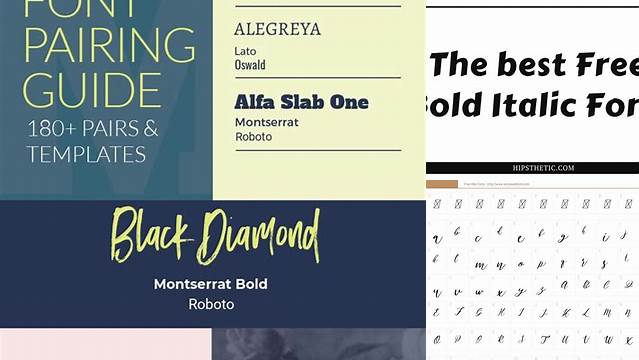
Free Italic Fonts: Your Ultimate Guide
Hey guys! Ever wondered where to find those perfect free italic fonts to spice up your projects? You're in the right place! This guide dives deep into the world of italic fonts, showing you where to find them, how to use them, and everything in between. We’ll explore various styles, licensing considerations, and even some tips on pairing them with other fonts. So, let's get started and make your text truly stand out with some fantastic free italic fonts!
1. What Are Italic Fonts?
Okay, so before we jump into the hunt for free italic fonts, let's make sure we're all on the same page. What exactly are italic fonts? Simply put, italics are a typeface style where the letters slant to the right. This gives the text a flowing, elegant, and sometimes even a slightly handwritten feel. Think of it as the fancy cursive cousin of regular fonts. Italic fonts are often used for emphasis, quotes, foreign words, or simply to add a bit of visual flair to your designs. When you are working on a project, having a good grasp of how to use free italic fonts can really take the work to the next level and keep things interesting. You can also see how different types of fonts can pair with italics to give a more polished finished product.
2. Why Use Italic Fonts?
So, why should you even bother with free italic fonts? Well, there are tons of reasons! For starters, italics are fantastic for drawing attention to specific words or phrases. Imagine you're writing a blog post and want to highlight a key point—italics are your go-to. They also add a touch of sophistication and elegance, making your text feel more refined. Plus, they’re super useful for distinguishing quotes, book titles, or foreign language terms. Using italics can be a subtle way to communicate a lot of meaning. When you think about the impact of free italic fonts, consider the tone they can add to your project. Are you trying to be formal, friendly, or academic? The right italic font can help convey your intention. And the best part? You can often find amazing free italic fonts that don’t break the bank.
3. Where to Find Free Italic Fonts Online
Alright, let’s get to the good stuff: where can you actually find these magical free italic fonts online? The internet is overflowing with options, but knowing where to look is key. Websites like Google Fonts, Font Squirrel, and DaFont are treasure troves of free italic fonts. These platforms offer a wide variety of styles, from classic to modern, ensuring you’ll find something that fits your project perfectly. When browsing these sites, be sure to use the search filters to narrow down your options. Look for categories like “italic,” “script,” or “handwritten” to make your search more efficient. Always remember to check the licensing terms before you download and use a font, just to make sure you’re following the rules. Finding free italic fonts doesn't have to be a headache, and with the right resources, you can build an impressive font library.
4. Google Fonts Italic Selection
Speaking of Google Fonts, let’s zoom in on their italic selection. Google Fonts is a powerhouse for free italic fonts, offering a massive library that's completely free to use for both personal and commercial projects. The best part? They’re super easy to integrate into websites and documents. Google Fonts includes a vast array of italic styles, from classic serif italics to modern sans-serif versions. You can preview how the fonts look in different sizes and styles right on the website. To find the italic fonts, simply search for a font family and check if they offer an italic version. Many popular fonts like Open Sans, Roboto, and Lato have fantastic italic variations. Using Google Fonts for free italic fonts is a smart move because you know they are high-quality and compatible across different platforms and devices. Plus, their interface is user-friendly, making the whole process a breeze.
5. Font Squirrel Italic Options
Next up, let’s talk about Font Squirrel. Font Squirrel is another fantastic resource for free italic fonts, known for its collection of high-quality, commercial-use-friendly fonts. This means you can use the fonts for almost any project without worrying about licensing issues. Font Squirrel offers a curated selection of fonts, making it easier to find unique and stylish options. Their website has a handy “Font Identifier” tool, which lets you upload an image of a font and try to identify it—super useful if you spot an italic font you love but don’t know the name! When browsing Font Squirrel for free italic fonts, you’ll find everything from elegant script italics to bold, modern versions. This site is particularly great if you’re looking for something a little different from the mainstream choices. The peace of mind knowing the fonts are cleared for commercial use makes Font Squirrel a top pick for many designers and creatives.
6. DaFont's Free Italic Variety
7. Understanding Font Licensing
Okay, guys, let's talk about the not-so-glamorous but super important stuff: font licensing. When you're dealing with free italic fonts, it's crucial to understand the terms of use. Basically, a font license tells you what you're allowed to do with the font. Some fonts are free for personal use only, meaning you can use them for your personal projects but not for anything that makes money. Others are free for commercial use, which means you can use them in projects for clients or even in products you sell. Always check the license agreement before using any free italic fonts. This is usually a text file included with the font download or mentioned on the website where you found the font. Ignoring font licenses can lead to legal trouble, so it’s always better to be safe than sorry. Understanding these licenses ensures you can enjoy free italic fonts without any headaches down the road.
8. Personal Use vs. Commercial Use
Diving a bit deeper into licensing, let’s clarify the difference between personal and commercial use. Personal use means you're using the free italic fonts for projects that aren't related to making money. Think of things like personal blogs, school projects, or greeting cards for friends and family. Commercial use, on the other hand, means you're using the font in a project that is intended to generate revenue. This could be anything from a logo for a business to marketing materials for a product. When searching for free italic fonts, always pay close attention to whether the license allows for commercial use if that's what you need. Some designers offer fonts that are free for personal use but require a license purchase for commercial use. Knowing the distinction between these two types of use will help you stay on the right side of the law and ensure you’re using your free italic fonts appropriately.
9. Pairing Italic Fonts with Other Styles
Now for the fun part: pairing free italic fonts with other styles! Choosing the right combination of fonts can make a huge difference in the overall look and feel of your project. A general rule of thumb is to pair an italic font with a contrasting style, such as a sans-serif font. For example, you might pair an elegant serif italic with a clean, modern sans-serif for headings. This creates a visual hierarchy and makes your design more interesting. Another tip is to use italics sparingly for emphasis rather than for large blocks of text. Overusing italics can make your design look cluttered. Experiment with different combinations and see what works best for your project. There are tons of online resources and articles that offer font pairing suggestions to inspire you. Mastering the art of pairing free italic fonts with other styles is a key skill for any designer.
10. Italic Fonts for Logos
Thinking about using free italic fonts for a logo? It’s definitely a stylish choice! Italic fonts can add a touch of elegance, sophistication, and personality to your brand identity. They're particularly effective for brands that want to convey creativity, artistry, or a personal touch. However, it’s crucial to choose the right italic font for your brand's message. A flowing script italic might be perfect for a boutique or a creative agency, while a more structured italic might suit a professional service. Consider the legibility of the font as well. While some script italics look beautiful, they can be difficult to read at smaller sizes. Make sure your logo is clear and legible in all contexts. Also, remember to check the font license if you plan to use free italic fonts commercially in your logo. A well-chosen italic font can make your logo stand out and leave a lasting impression.
11. Italic Fonts for Websites
Using free italic fonts on your website can add a touch of sophistication and visual interest. Italics are great for highlighting key phrases, quotes, or even navigation elements. However, like with logos, it's important to use them judiciously. Overusing italics can make your website look cluttered and difficult to read. Stick to using italics for specific purposes, such as emphasizing important information or creating a visual hierarchy. When choosing free italic fonts for your website, consider readability on different devices. Some fonts look great on a desktop but become less legible on mobile screens. Test your font choices on various devices to ensure a consistent user experience. Also, consider website loading times. Using too many different fonts, especially those that are not web-safe, can slow down your site. Opting for web fonts from services like Google Fonts can help minimize this issue. With a bit of care, free italic fonts can significantly enhance your website's design.
12. Italic Fonts in Print Design
When it comes to print design, free italic fonts can be a game-changer. They add a level of elegance and can help draw the reader's eye to important details. Whether you’re designing brochures, posters, or business cards, italics can play a key role in creating a polished look. One of the great uses for italics in print is for captions, where they can provide additional context or commentary in a subtle way. They’re also fantastic for pull quotes, giving these highlighted sections a distinct visual identity. When selecting free italic fonts for print, keep in mind that what looks good on screen might not always translate perfectly to paper. Print resolution can affect how fine details appear, so it’s crucial to test your fonts at different sizes. Also, be mindful of your paper choice and ink colors, as these can influence the final result. Using free italic fonts effectively in print design can elevate your projects from good to great.
13. Combining Serif and Italic Fonts
Pairing serif fonts with free italic fonts is a classic and effective way to create visually appealing designs. Serif fonts, with their small decorative strokes, often convey a sense of tradition and formality. When you combine them with italics, which add a touch of elegance and emphasis, you get a dynamic and balanced look. This combination is particularly popular in editorial design, where serif fonts are commonly used for body text and italics highlight important details or quotes. To make the most of this pairing, choose serif fonts that have well-designed italic versions. Not all serif fonts have equally attractive italics, so it’s worth taking the time to find a good match. Consider the weight and style of both fonts as well. A bold serif font might pair well with a lighter italic, or vice versa. Experimenting with different combinations will help you find the perfect harmony between serif fonts and free italic fonts for your project.
14. Sans-Serif and Italic Font Pairings
Sans-serif fonts, known for their clean and modern look, can also pair beautifully with free italic fonts. This combination brings a contemporary feel to your designs, blending the simplicity of sans-serif with the stylish flair of italics. Using sans-serif fonts for headings and body text while reserving italics for emphasis or captions can create a clear visual hierarchy. When selecting a sans-serif font to pair with italics, consider the overall tone you want to convey. A geometric sans-serif, for instance, might pair well with a sleek, understated italic, while a more humanist sans-serif could complement a flowing script italic. As with serif pairings, balance is key. Avoid choosing fonts that are too similar in weight or style, as this can make your design look monotonous. Instead, aim for contrast while maintaining harmony. Exploring various pairings of sans-serif and free italic fonts can lead to some striking and effective designs.
15. Script Italic Fonts: A Closer Look
Script italic fonts are where the magic truly happens when you want to add a personal and elegant touch. These fonts mimic the fluidity of handwriting, making them ideal for invitations, headings, and designs that require a touch of sophistication. When using script free italic fonts, it’s crucial to consider readability. Some script fonts can be quite ornate, making them challenging to read in large blocks of text or at small sizes. It’s often best to reserve script italics for shorter phrases or titles where their elegance can shine without sacrificing clarity. Pairing script italics with a simpler font, such as a sans-serif, can create a balanced and visually appealing design. The contrast between the elaborate script and the clean sans-serif helps each style stand out. Also, be mindful of the context. Script free italic fonts are perfect for projects that require a personal touch, like wedding invitations or thank-you notes, but might not be the best choice for a corporate report or technical document.
16. Bold Italic Fonts: When to Use Them
Bold italic fonts are the powerhouses of the italic world. They pack a punch and are perfect for when you need extra emphasis or a strong visual statement. Using bold italics can make key phrases and headings stand out, drawing the reader’s eye to the most important information. However, like any strong element, bold italics should be used sparingly. Overusing them can make your design look cluttered and overwhelming. Think of bold italics as the exclamation point of typography—use them when you really want to make an impact. They work particularly well in print design, such as in brochures or posters, where you need to grab the reader's attention quickly. When selecting bold free italic fonts, consider the overall tone of your design. A heavy, blocky italic might be suitable for a bold, modern design, while a more refined bold italic could complement a classic or elegant look. The key is to ensure the bold italic font enhances your message without overpowering it.
17. Light Italic Fonts: Subtlety and Elegance
On the other end of the spectrum, light italic fonts offer subtlety and elegance. These fonts are perfect for designs that require a refined touch and a sense of understated sophistication. Light italics are excellent for creating a gentle emphasis, making them ideal for captions, subheadings, or subtle callouts. They can also be used effectively in body text to add a bit of visual interest without being too distracting. One of the advantages of light free italic fonts is their ability to create a sense of airiness and lightness. They’re particularly well-suited for designs that aim for a minimalist or clean aesthetic. However, it's important to consider readability when using light italics. On certain backgrounds or at smaller sizes, they can be more challenging to read. Testing your font choices in different contexts is crucial to ensure your message remains clear. When used correctly, light free italic fonts can bring a touch of sophistication to your designs.
18. Italic Fonts for Body Text: Best Practices
Using free italic fonts in body text can add a touch of elegance and visual variety, but it’s a practice that requires careful consideration. While italics are great for emphasis, overusing them in large blocks of text can make your content difficult to read. The general rule of thumb is to reserve italics for specific purposes within the body text, such as highlighting key terms, introducing foreign words, or citing book titles. If you’re planning to use italics extensively, choose a font that has a well-designed italic version with good readability. Some italic fonts can be too slanted or ornate, making them hard on the eyes when read for an extended period. Always prioritize clarity and legibility. Also, be mindful of the contrast between your italic font and the regular text. A subtle italic can blend seamlessly, while a more pronounced italic can create a stronger visual distinction. By following these best practices, you can effectively incorporate free italic fonts into your body text without sacrificing readability.
19. Italic Fonts for Headlines and Titles
Headlines and titles are prime real estate for free italic fonts. Italics can add a touch of elegance, sophistication, and visual interest to your headings, helping them stand out and grab the reader's attention. When choosing an italic font for a headline, consider the overall tone and style of your design. A flowing script italic might be perfect for a creative or artistic project, while a more structured italic could be a better fit for a professional or corporate context. One of the key advantages of using italics in headlines is their ability to create a visual hierarchy. An italic headline can stand out against a regular text body, making it clear to the reader what the main points are. However, it’s important to ensure that your italic headline remains legible. Avoid choosing fonts that are too ornate or condensed, as these can be difficult to read at larger sizes. Pairing your italic headline with a complementary font in the body text can create a harmonious and visually appealing design. With the right choice, free italic fonts can make your headlines truly shine.
20. Monospace Italic Fonts: A Unique Style
Monospace italic fonts offer a unique and distinct style that can add a touch of retro flair to your designs. Monospace fonts, where each character occupies the same horizontal space, are often associated with typewriters and coding environments. When you combine this with the slant of italics, you get a font that’s both functional and stylish. Monospace free italic fonts are particularly effective for displaying code snippets, technical information, or creating a vintage-inspired look. They can also be used to add a quirky twist to headings or captions. However, like other specialty fonts, it’s important to use monospace italics judiciously. Overusing them can make your design look cluttered or difficult to read. Consider the context of your project and whether the monospace italic style aligns with your overall message. When choosing a monospace italic font, pay attention to its legibility and character spacing. Some monospace fonts can have tight spacing, making them challenging to read in large blocks of text. With the right touch, monospace free italic fonts can add a unique and memorable element to your designs.
21. Variable Italic Fonts: The Future of Typography
Variable italic fonts represent the future of typography, offering incredible flexibility and control over font styles. Unlike traditional fonts, which have separate files for different weights and styles, variable fonts contain all this information in a single file. This means you can adjust the weight, width, and slant of the font with granular precision, allowing for a wide range of stylistic variations. For italics, variable fonts allow you to fine-tune the angle of the slant, creating subtle or dramatic effects as needed. This level of control is a game-changer for designers, providing the ability to create truly customized typography. While variable free italic fonts are still relatively new, they are gaining popularity and are supported by many modern design tools and web browsers. As the technology evolves, variable fonts are set to become the standard, offering a more efficient and versatile way to work with typography. Exploring variable free italic fonts can give you a glimpse into the exciting possibilities of the future of design.
22. Retro Italic Fonts: Bringing Back the Classics
Retro italic fonts are a fantastic way to infuse your designs with a sense of nostalgia and vintage charm. These fonts evoke the styles of past decades, from the mid-century modern era to the groovy 70s and the vibrant 80s. Using retro free italic fonts can add a unique and eye-catching touch to your projects, making them stand out from the crowd. When choosing a retro italic font, consider the specific era you want to emulate. A script italic with a flowing, calligraphic style might be perfect for a vintage wedding invitation, while a bold, slanted italic could capture the energy of a retro sports poster. One of the great things about retro fonts is their ability to create a strong emotional connection with the viewer. They can transport people back in time and evoke feelings of nostalgia and warmth. However, it’s important to use retro italics judiciously. Overdoing it can make your design look dated or kitschy. Balance your retro font with modern elements to create a design that’s both stylish and timeless. Exploring retro free italic fonts can open up a world of creative possibilities and help you craft designs that resonate with your audience.
23. Modern Italic Fonts: Sleek and Stylish
Modern italic fonts are all about sleekness, simplicity, and sophistication. These fonts embody contemporary design principles, with clean lines, minimalist forms, and a focus on readability. Using modern free italic fonts can give your designs a polished and professional look, making them ideal for projects that aim to convey a sense of innovation and style. When choosing a modern italic font, look for designs that have a subtle slant and a balanced appearance. Avoid fonts that are too ornate or decorative, as these can detract from the modern aesthetic. Modern italics pair well with sans-serif fonts, creating a clean and harmonious combination. They can be used effectively in headings, body text, and captions, adding a touch of elegance without sacrificing clarity. One of the key advantages of modern free italic fonts is their versatility. They can be used in a wide range of projects, from website design and branding to print materials and presentations. By incorporating modern italics into your designs, you can create a look that’s both stylish and timeless.
24. Calligraphic Italic Fonts: Elegance and Grace
Calligraphic italic fonts bring the beauty and fluidity of hand lettering to your designs. These fonts are inspired by traditional calligraphy, featuring elegant strokes, flowing lines, and a touch of artistic flair. Using calligraphic free italic fonts can add a sense of grace and sophistication to your projects, making them perfect for invitations, certificates, and designs that require a personal touch. When choosing a calligraphic italic font, consider the level of formality you want to convey. Some calligraphic fonts are more ornate and elaborate, while others are simpler and more understated. A formal calligraphic italic might be ideal for a wedding invitation, while a more casual version could work well for a handwritten note. Calligraphic italics are best used sparingly, as large blocks of calligraphic text can be difficult to read. Reserve them for headings, titles, or short phrases where their elegance can shine. Pairing calligraphic free italic fonts with a simpler font, such as a sans-serif or a classic serif, can create a balanced and visually appealing design. With the right touch, calligraphic italics can elevate your projects and make them truly memorable.
25. Handwritten Italic Fonts: A Personal Touch
Handwritten italic fonts capture the charm and authenticity of human handwriting. These fonts mimic the irregular strokes and unique character shapes of real handwriting, adding a personal and informal touch to your designs. Using handwritten free italic fonts can make your projects feel more approachable and relatable, making them ideal for greeting cards, personal notes, and designs that aim to convey a sense of warmth and intimacy. When choosing a handwritten italic font, consider the overall tone and style you want to create. Some handwritten fonts are neat and legible, while others are more playful and whimsical. A clean handwritten italic might be perfect for a thank-you note, while a more casual version could work well for a blog post or social media graphic. Handwritten italics are best used in moderation, as large blocks of handwritten text can be challenging to read. Reserve them for headings, quotes, or short phrases where their personality can shine. Pairing handwritten free italic fonts with a simpler font, such as a sans-serif, can create a balanced and visually appealing design. With the right choice, handwritten italics can make your projects feel more personal and heartfelt.
26. Cursive Italic Fonts: Flowing and Stylish
Cursive italic fonts are characterized by their flowing, connected letterforms, creating a sense of movement and elegance. These fonts mimic the style of traditional cursive handwriting, adding a touch of sophistication and style to your designs. Using cursive free italic fonts can make your projects feel more refined and polished, making them ideal for invitations, certificates, and designs that require a touch of class. When choosing a cursive italic font, consider the level of formality you want to convey. Some cursive fonts are very ornate and elaborate, while others are simpler and more understated. A formal cursive italic might be perfect for a wedding invitation, while a more casual version could work well for a thank-you note or a greeting card. Cursive italics are best used sparingly, as large blocks of cursive text can be challenging to read. Reserve them for headings, titles, or short phrases where their elegance can shine. Pairing cursive free italic fonts with a simpler font, such as a sans-serif or a classic serif, can create a balanced and visually appealing design. With the right choice, cursive italics can elevate your projects and make them truly special.
27. Distressed Italic Fonts: Adding Texture and Character
Distressed italic fonts offer a unique and edgy aesthetic, adding texture and character to your designs. These fonts feature a weathered or worn appearance, mimicking the look of vintage typography or hand-printed materials. Using distressed free italic fonts can give your projects a sense of history and authenticity, making them ideal for designs that aim to convey a rustic, industrial, or vintage vibe. When choosing a distressed italic font, consider the level of distress you want to achieve. Some distressed fonts have subtle imperfections, while others have more pronounced textures and irregularities. A slightly distressed italic might be perfect for a vintage poster, while a more heavily distressed version could work well for a grunge-inspired design. Distressed italics are best used in moderation, as overusing them can make your design look cluttered or chaotic. Reserve them for headings, titles, or short phrases where their character can shine. Pairing distressed free italic fonts with a cleaner font, such as a sans-serif or a geometric typeface, can create a balanced and visually interesting design. With the right touch, distressed italics can add depth and personality to your projects.
28. Display Italic Fonts: Making a Statement
Display italic fonts are designed to grab attention and make a statement. These fonts are often bold, unique, and highly stylized, making them perfect for headlines, titles, and other prominent design elements. Using display free italic fonts can add a strong visual impact to your projects, making them ideal for posters, advertisements, and designs that need to stand out from the crowd. When choosing a display italic font, consider the overall tone and message you want to convey. Some display fonts are playful and whimsical, while others are bold and assertive. A playful display italic might be perfect for a children's book cover, while a bold version could work well for a movie poster or a magazine headline. Display italics are best used sparingly, as overusing them can make your design look cluttered or overwhelming. Reserve them for key elements where you want to make a strong impression. Pairing display free italic fonts with a simpler font in the body text can create a balanced and visually appealing design. With the right choice, display italics can elevate your projects and make them unforgettable.
29. Web-Safe Italic Fonts: Ensuring Compatibility
When designing for the web, it's crucial to consider font compatibility. Web-safe italic fonts are fonts that are widely supported by different web browsers and operating systems, ensuring that your text will display correctly for all users. Using web-safe free italic fonts helps to maintain a consistent look and feel across different devices and platforms. While there are many amazing fonts available, not all of them are web-safe. Common web-safe italic fonts include Arial Italic, Times New Roman Italic, and Courier New Italic. These fonts are pre-installed on most computers, so you can be confident that they will display correctly. However, if you want to use a more unique or stylish italic font, you can use web fonts from services like Google Fonts or Adobe Fonts. These services allow you to embed custom fonts into your website, ensuring that your text looks exactly as you intended. When choosing free italic fonts for your website, always test them on different browsers and devices to ensure they display correctly. Prioritizing web-safe fonts or using web font services can help you create a visually appealing website that works for everyone.
30. Tips for Using Free Italic Fonts Effectively
To wrap things up, let’s go over some tips for using free italic fonts effectively. First and foremost, consider your project’s overall tone and message. Choose an italic font that complements your design and conveys the right feeling. Whether it’s elegance, boldness, or playfulness, the font should align with your vision. Next, think about readability. While italics are great for emphasis, overusing them can make your text difficult to read. Use italics sparingly, and always prioritize clarity. Pairing your italic font with a contrasting style, such as a sans-serif or a classic serif, can create a balanced and visually appealing design. Experiment with different combinations to find the perfect match. Remember to check the font license before using any free italic fonts, especially for commercial projects. Finally, test your font choices on different devices and platforms to ensure they display correctly. By following these tips, you can make the most of free italic fonts and create stunning designs that captivate your audience. Happy designing!